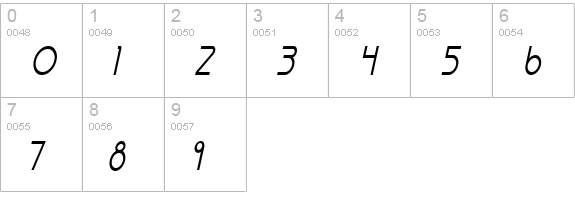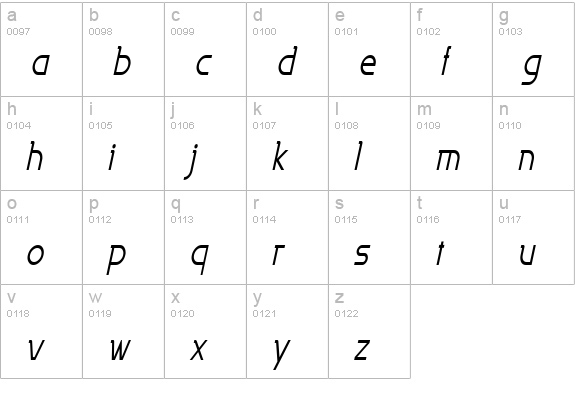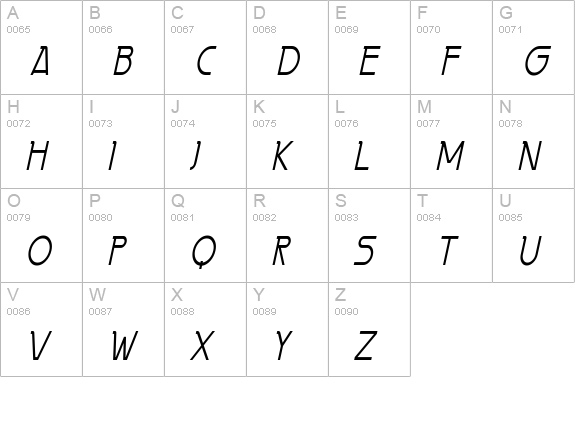
Persia Thin Italic is a delicate, low-contrast, italic variant in the Persia typeface family \xE2\x80\x94 well suited to fashion editorial, minimal branding, and high-contrast display.
Introducing Persia Thin Italic, a beautifully crafted font that adds an elegant touch to any design project. With its sleek and refined appearance, this font is perfect for creating stunning logos, sophisticated branding materials, and eye-catching print designs. The Persia Thin Italic font features a unique blend of thin strokes and italicized letterforms, creating a sense of grace and fluidity. Its delicate curves and slender lines exude a sense of modernity, making it a versatile choice for both digital and print applications. With Persia Thin Italic, you can effortlessly elevate your designs to new heights of sophistication. Whether you're designing a fashion magazine, a wedding invitation, or a website interface, this font will bring a touch of class and refinement to your work. And the best part? Persia Thin Italic is available for free download at FontsMarket.com. You can easily access this font and start using it in your projects without any hassle. So why wait? Enhance your designs with the timeless beauty of Persia Thin Italic today.